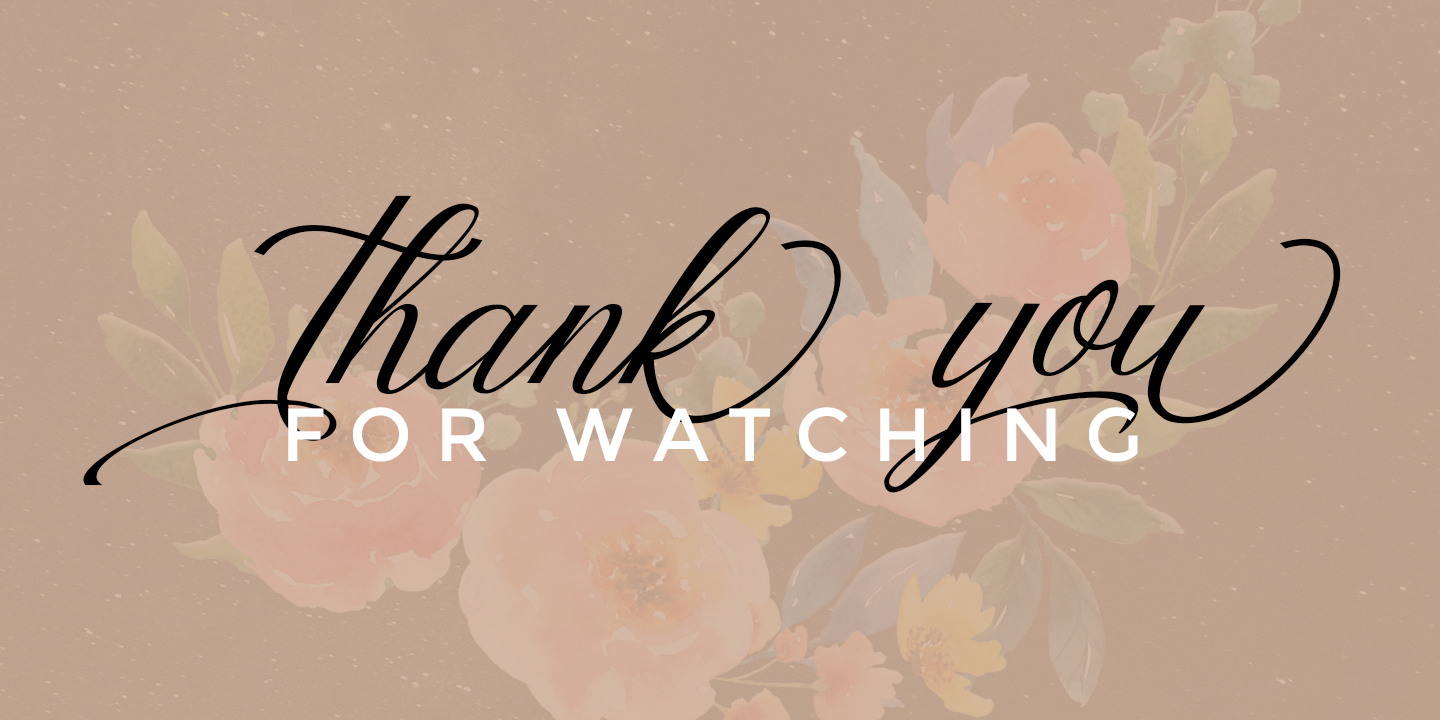
Mottingham Elegant Calligraphy Free Download
Mottingham Elegant Calligraphy Font Free Download
Mottingham Elegant Calligraphy Font is perfect for luxury wedding invitations, high-end fashion brand logos, premium certificate designs, elegant menu layouts, sophisticated business cards, royal event stationery, fine art gallery signage, upscale boutique branding, and refined social media content. This exquisite typeface brings aristocratic sophistication and timeless elegance to both digital and print design applications.
Mottingham Elegant Calligraphy Font is exciting because it embodies the refined artistry of traditional English calligraphy with contemporary precision, making it an exceptional choice for designers who want to create luxurious, sophisticated designs that exude class and distinction. Its flowing letterforms and graceful flourishes provide the perfect combination of historical elegance and modern functionality, ensuring your projects convey premium quality and aristocratic refinement.
The Mottingham Elegant Calligraphy Font family includes ornate script variations, decorative swashes, and elegant ligatures that enhance creative possibilities. Each character maintains consistent calligraphic aesthetics while offering designers multiple styling options for customization, allowing for unique letter combinations that reflect individual brand sophistication and create memorable luxury experiences.
Whether you're designing for luxury brands, wedding industry, or premium services, Mottingham Elegant Calligraphy Font Free Download delivers unparalleled visual elegance that appeals to discerning clientele. This premium typeface offers designers the tools needed to create authentic aristocratic designs that stand out in competitive luxury markets. The font's sophisticated character makes it ideal for headlines, branding, and ceremonial applications where elegance and prestige are paramount. Download Mottingham Elegant Calligraphy Font today and elevate your creative projects with genuine aristocratic sophistication and timeless calligraphic excellence.